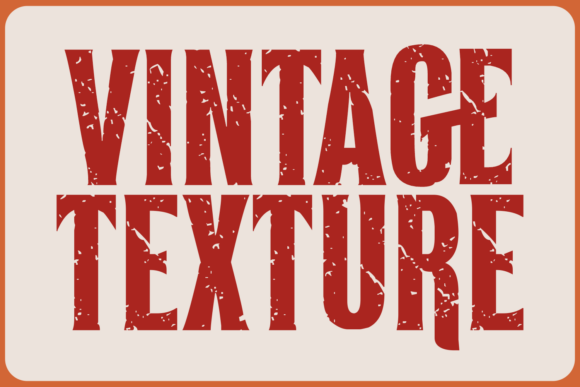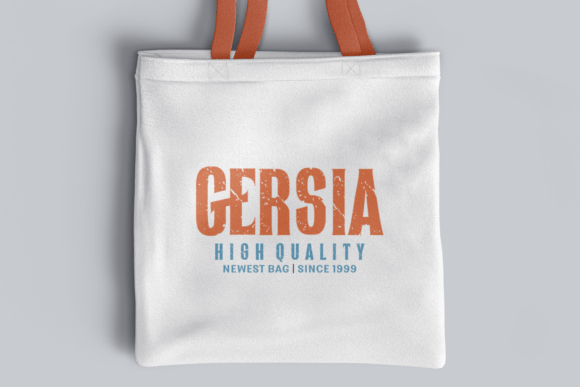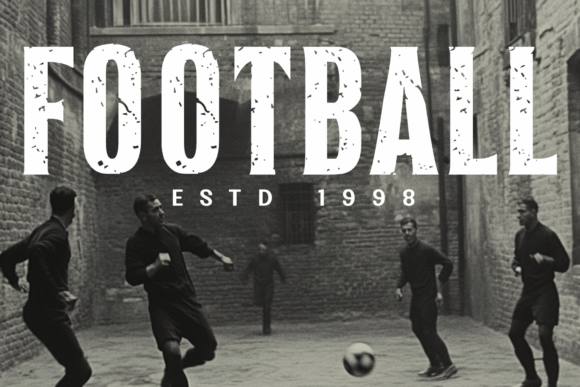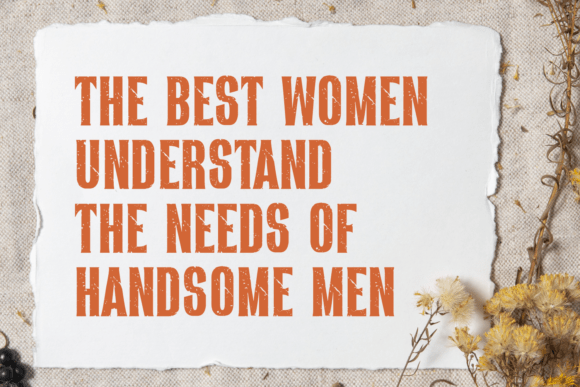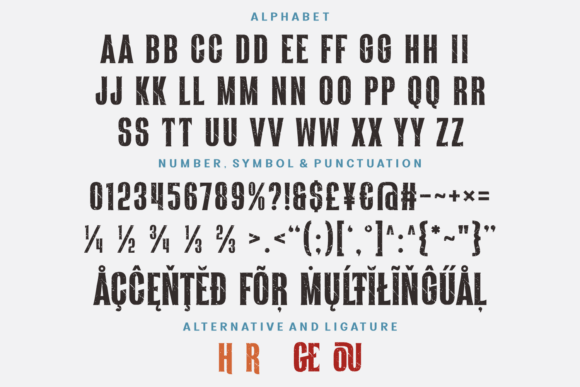
Introduction to Famous Marie Font
As a designer, you’ve been there – staring at a blank canvas, trying to bring your creative vision to life. The perfect font can make all the difference. And that’s exactly where the Famous Marie Font comes in – a stunningly authentic Slab Serif and Vintage Font that will transport you back to the heyday of thick Old-Style fonts.
With its slightly rough edges and grunge aesthetic, the Famous Marie Font is a game-changer for designers looking for a high-quality design resource that exudes nostalgia and charm. Whether you’re working on a creative project that requires a clean finish or a striking logotype, this versatile font is sure to deliver. And the best part? It’s available for free download, making it an invaluable addition to any designer’s toolkit.
From apparel design to book covers and brand identities, the Famous Marie Font is the perfect choice for designers who crave a unique and authentic look. With its transparent background and support for multiple languages, including Eastern European languages, this font is a valuable asset for any creative project.
Famous Marie Font
- Features a unique, elegant design with subtle flair, perfect for adding a touch of sophistication to any project.
Honest Review: Famous Marie Font
I recently stumbled upon Famous Marie Font, and I must say it’s been a game-changer for my creative projects. This font has quickly become a go-to resource for me, and I’m excited to share my thoughts on it.
- ✨ High quality design: The font is incredibly well-crafted, with a clean and elegant aesthetic that’s perfect for a variety of creative projects.
Any limitations:
- ⚠️ Limited font styles: While the font is beautiful, it’s limited to a single style, which may not be ideal for designers who need a variety of options.
Overall, I’m really impressed with Famous Marie Font. It’s a high-quality design resource that’s perfect for creative projects. While it has some limitations, I believe it’s still worth checking out – especially considering it’s completely free to download.
Famous Marie Font
Famous Marie Font is a high-quality, elegant design resource ideal for creative projects. Its transparent background and sophisticated style make it perfect for a wide range of applications.
Famous Marie Font is suitable for a wide range of creative projects, including:
- Business cards and marketing materials.
- Editorial and publishing designs.
- Personal branding and identity designs.